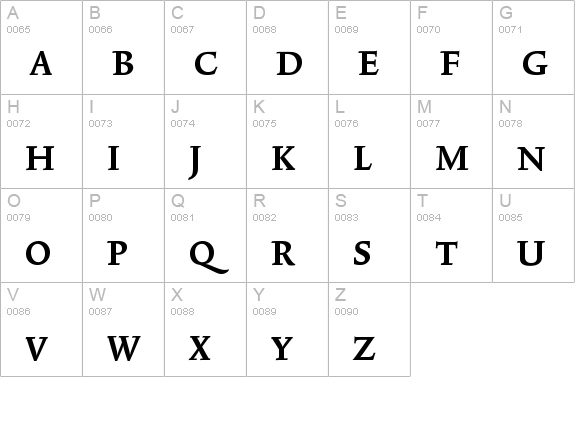
TriniteNo3-BoldTab is a stunning display font that exudes strength and boldness. With its sharp edges and clean lines, this font is perfect for making a statement in any design project. Whether you're creating a striking logo, eye-catching headlines, or attention-grabbing posters, TriniteNo3-BoldTab will command attention and leave a lasting impression. This font features a unique combination of geometric shapes and modern aesthetics, giving it a contemporary and sophisticated feel. Its bold and uppercase letters add an extra level of impact, making it ideal for creating impactful designs. The characters are meticulously designed, ensuring legibility even at smaller sizes. One of the best things about TriniteNo3-BoldTab is that it is available for free download at FontsMarket.com. This means that you can easily access this amazing font and incorporate it into your design projects without any hassle. Whether you're a professional designer or a hobbyist, this font is a must-have in your collection. TriniteNo3-BoldTab is not only visually striking but also versatile. It can be used in a wide range of projects, from branding and packaging to web design and social media graphics. Its clean and bold appearance makes it suitable for both digital and print media. So, if you're looking for a font that combines strength, sophistication, and versatility, look no further than TriniteNo3-BoldTab. Download it for free at FontsMarket.com and take your designs to the next level.